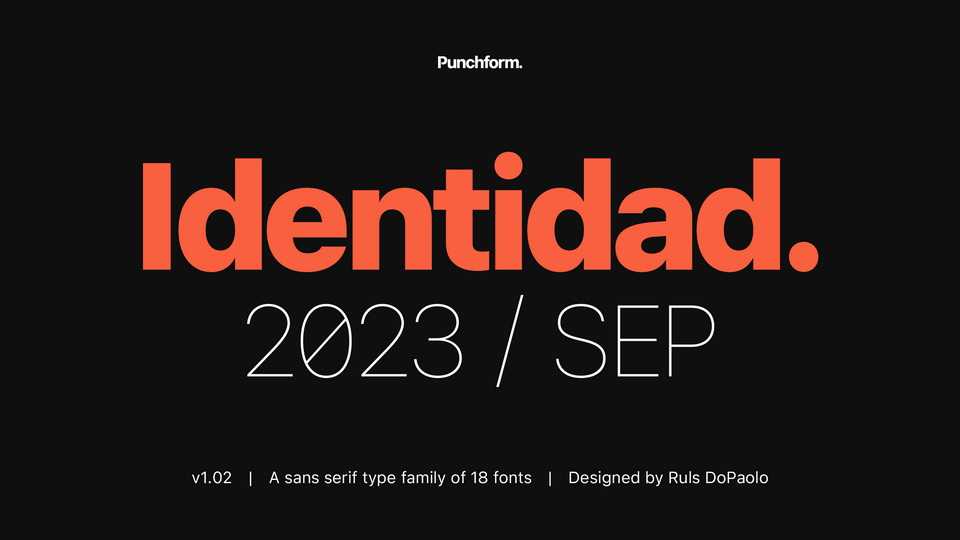
Download Identidad font, a sans serif typeface that embodies the essence of simplicity and readability. Its clean and straightforward characters are carefully crafted to ensure effortless legibility across various mediums.
Designer: Punchform